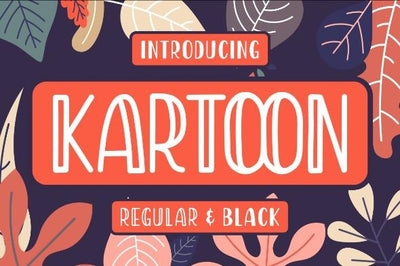
Kartoon – Display Font
Kartoon – Display Font is display font. It brings joyful and happiness to all of us. Inspired by bold and fun marker with bold and strong style.
This font is ideal for display, text, print, branding, signage, with a set of optimal characters for your design in any layout
– Stylistic Set & Standar Ligatures
– Numerals & Punctuations
– Multilingual characters (support for 23 languages)